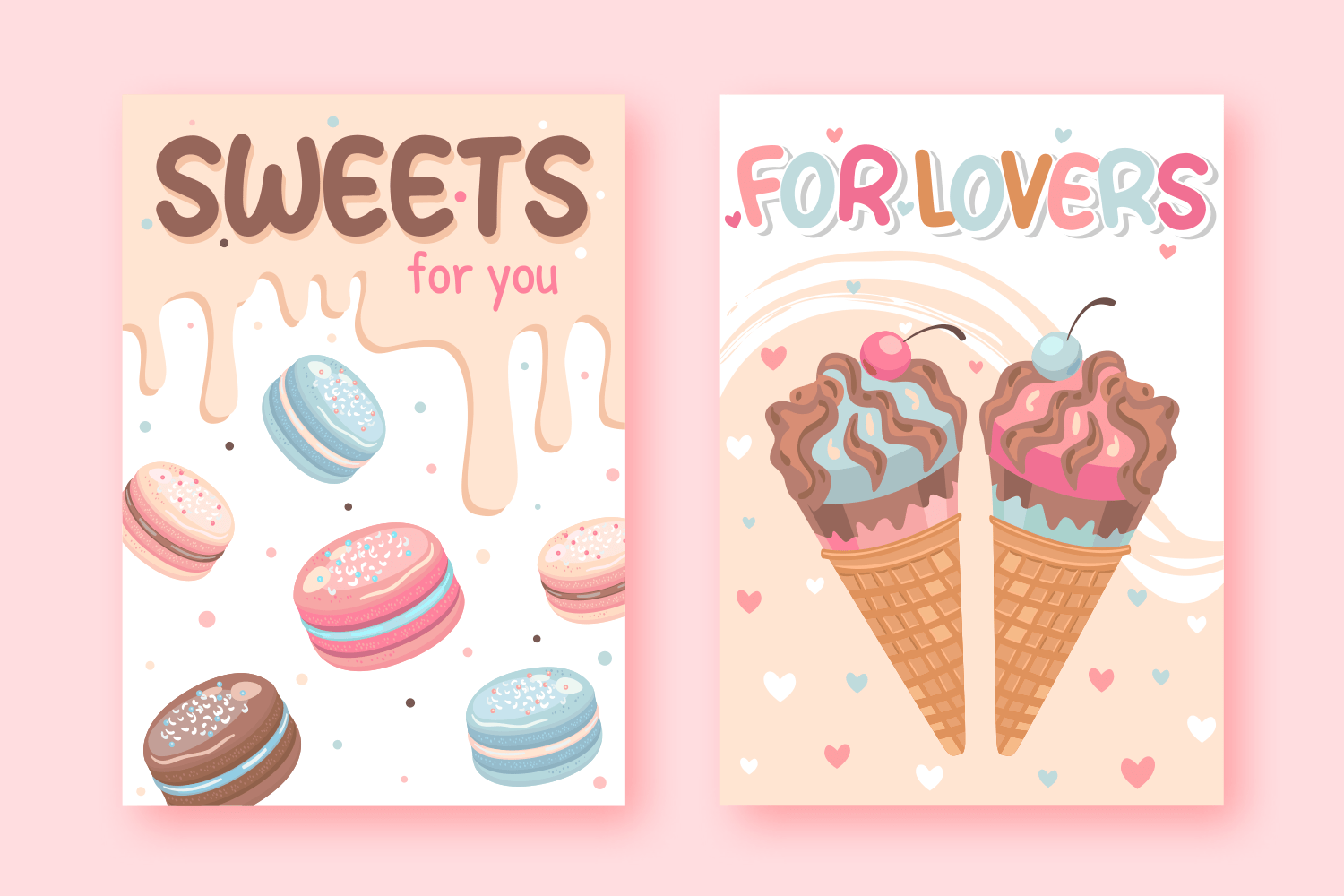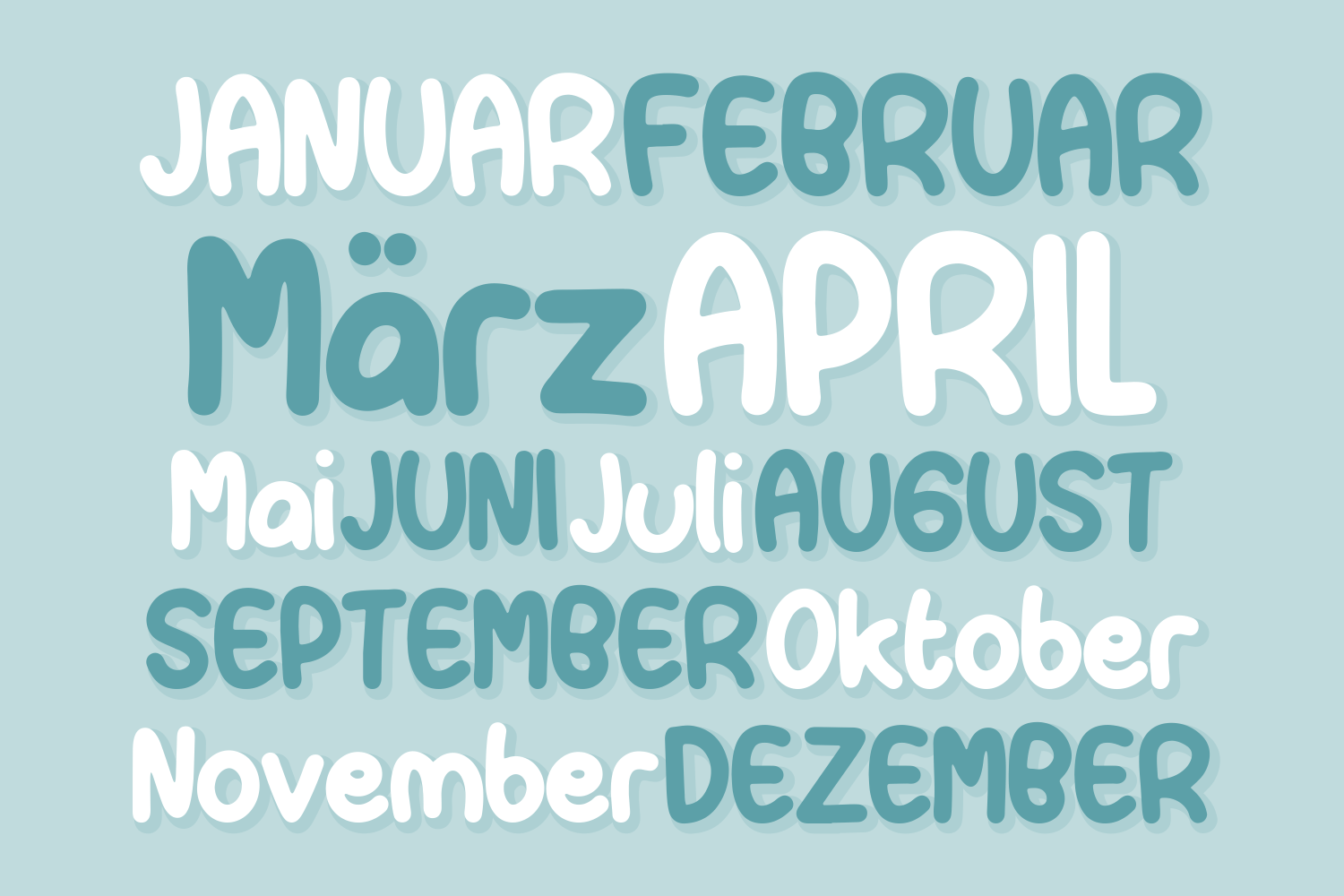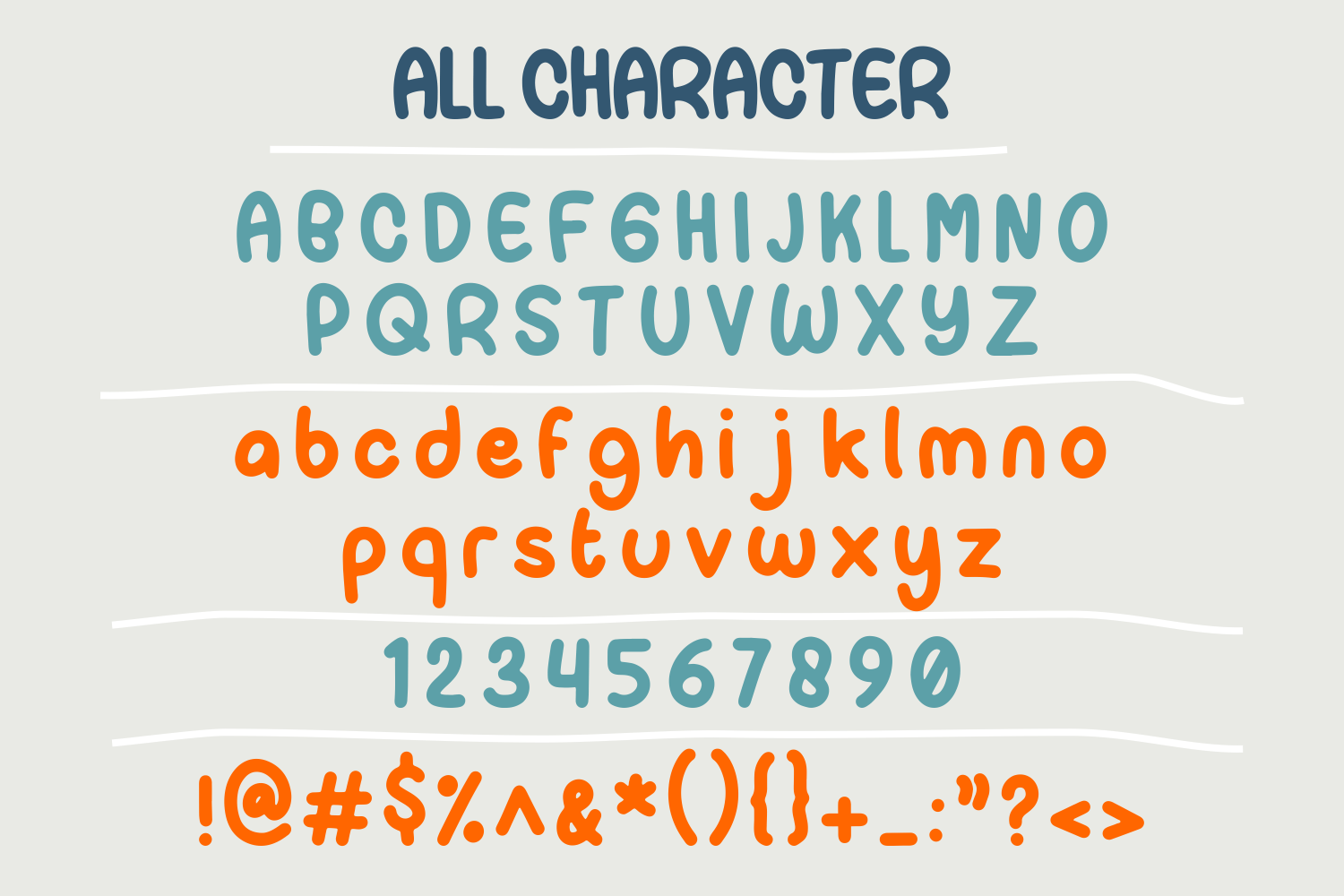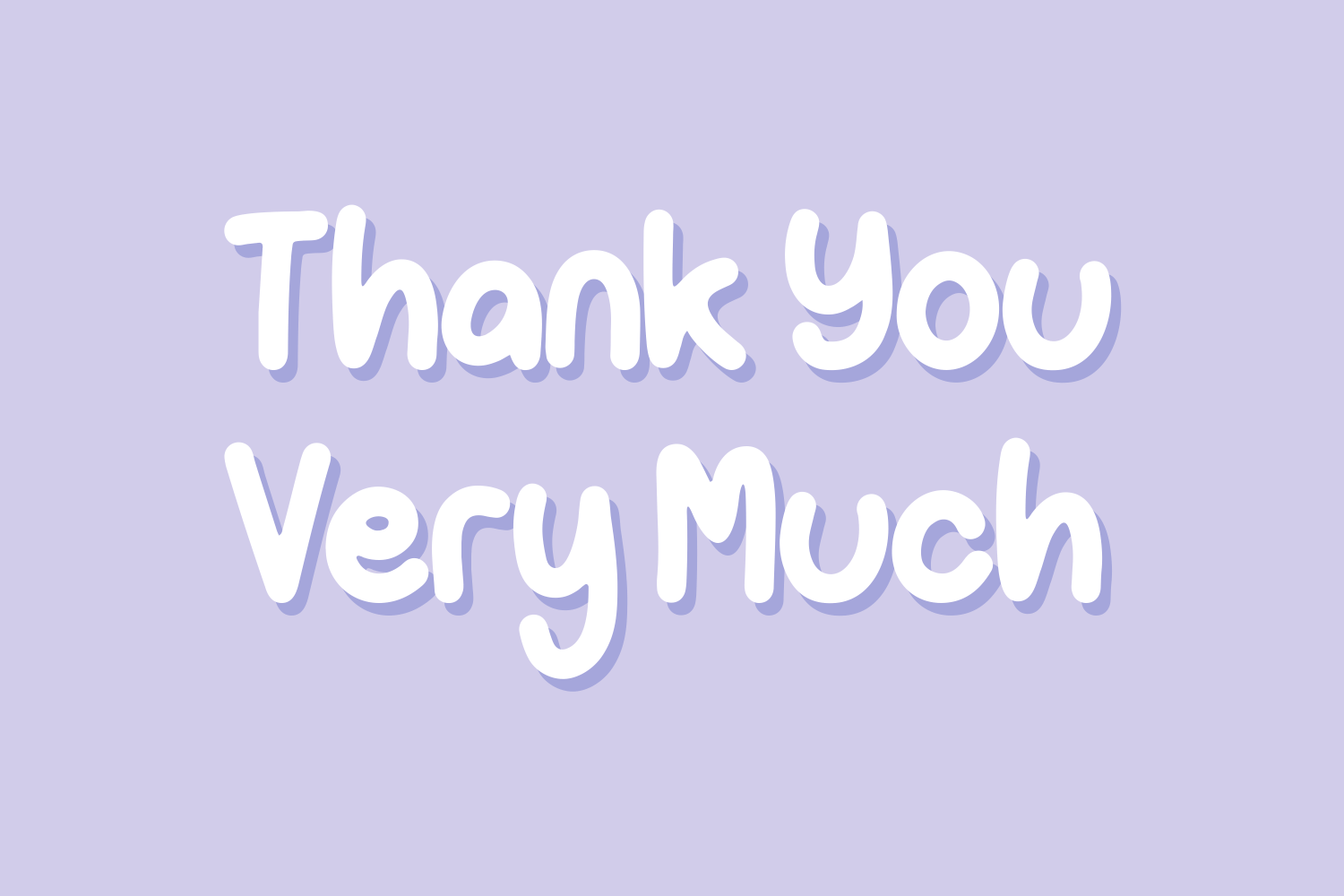
Paper Candy Font
Paper Candy Display Font is a simple, friendly and cute handwritten font. This adaptable font will look great on a variety of design ideas. It will add a fun and friendly touch to each of your projects!